21 Powerful Brush Script Fonts for Bold Designs in 2026
Brush Script Fonts give logos, posters, packaging, merch, and social graphics a hand-painted look without losing display impact. This collection is built for designers who need bold script lettering, rough brush texture, retro sign-painter energy, or playful handwritten motion for short titles and brand-focused visuals.
Bold & Textured Brush Script Fonts
These brush script fonts use heavy strokes, visible texture, and strong wordmark shapes for logos, packaging, posters, book covers, and display-led branding.
The Handled Font
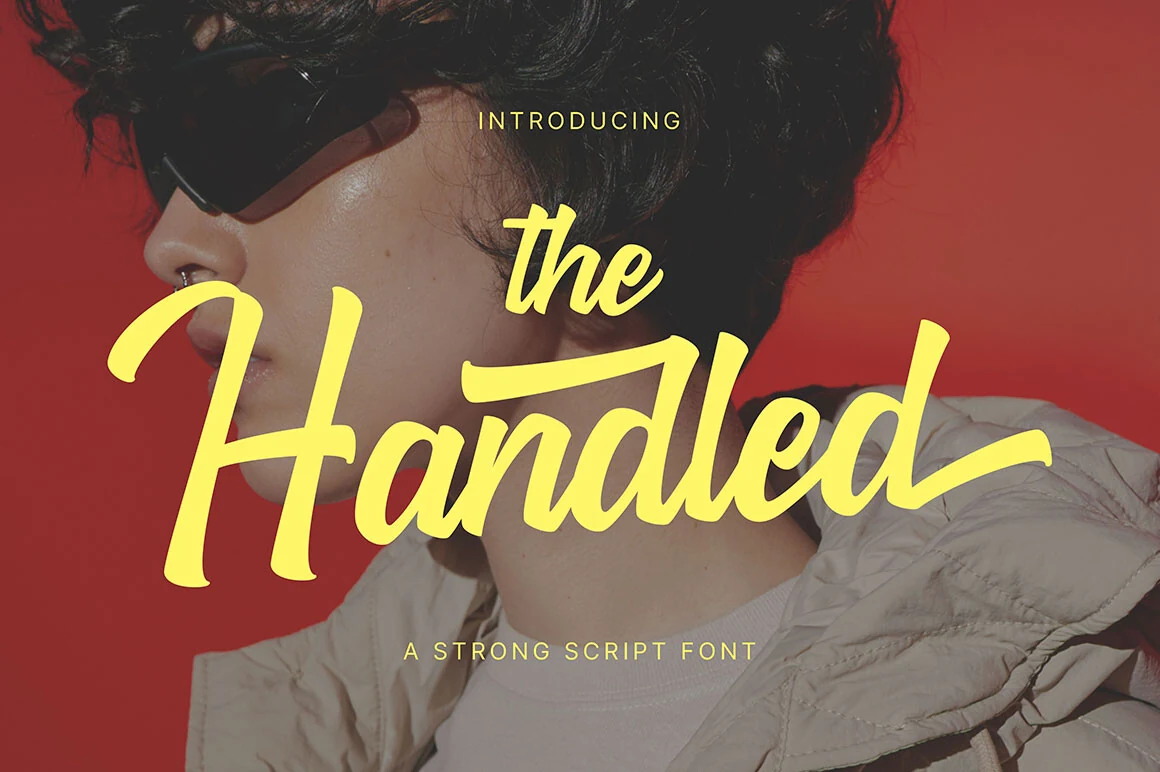
Best For: logos, posters, merch design, headlines
The Handled Font has the forceful rhythm expected from Brush Script Fonts, with thick connected letters, angled movement, and extended terminals that pull the wordmark across the line. Its rounded brush pressure gives the script a confident, poster-ready shape without turning the forms overly rough.
This is a display script for short names, titles, and apparel graphics where the lettering needs to carry the main visual weight. Give the long entry and exit strokes enough side space, then use compact uppercase support text to build hierarchy without competing with the script’s wide horizontal sweep.
Brownless Font
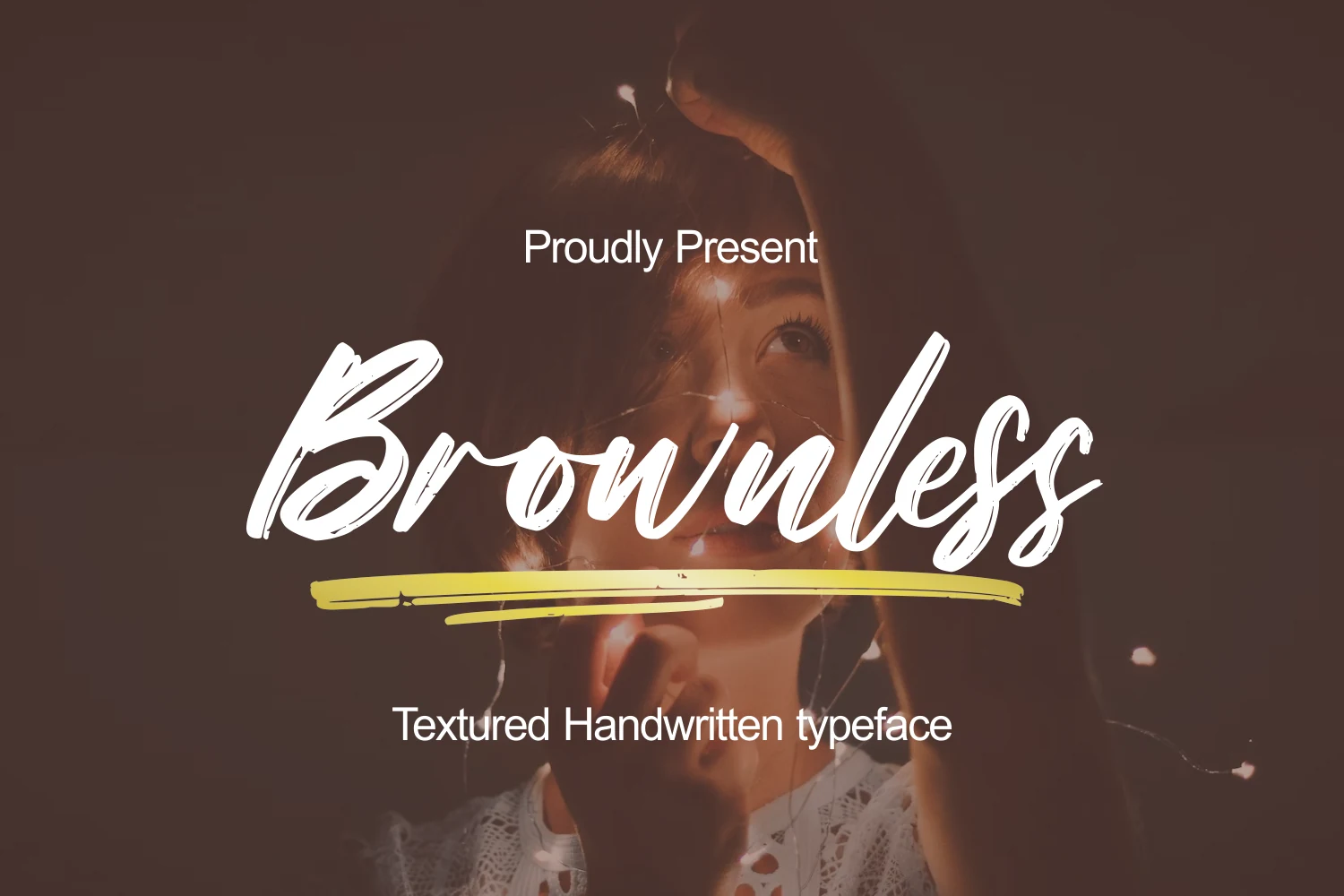
Best For: logos, posters, packaging, book covers
Brownless Font brings Brush Script Fonts into a textured handwritten space, using long connected strokes, sharp brush exits, and dry ink breaks inside the heavier letterforms. The script has a wide, sweeping rhythm, so it reads more like a confident title treatment than a quiet signature.
Use it for logos, packaging labels, posters, and book cover titles where the texture can stay visible. Keep the supporting type clean and small in hierarchy, and give the descenders and underline-style strokes enough lower margin so the brush movement does not feel clipped.
Midnight Font
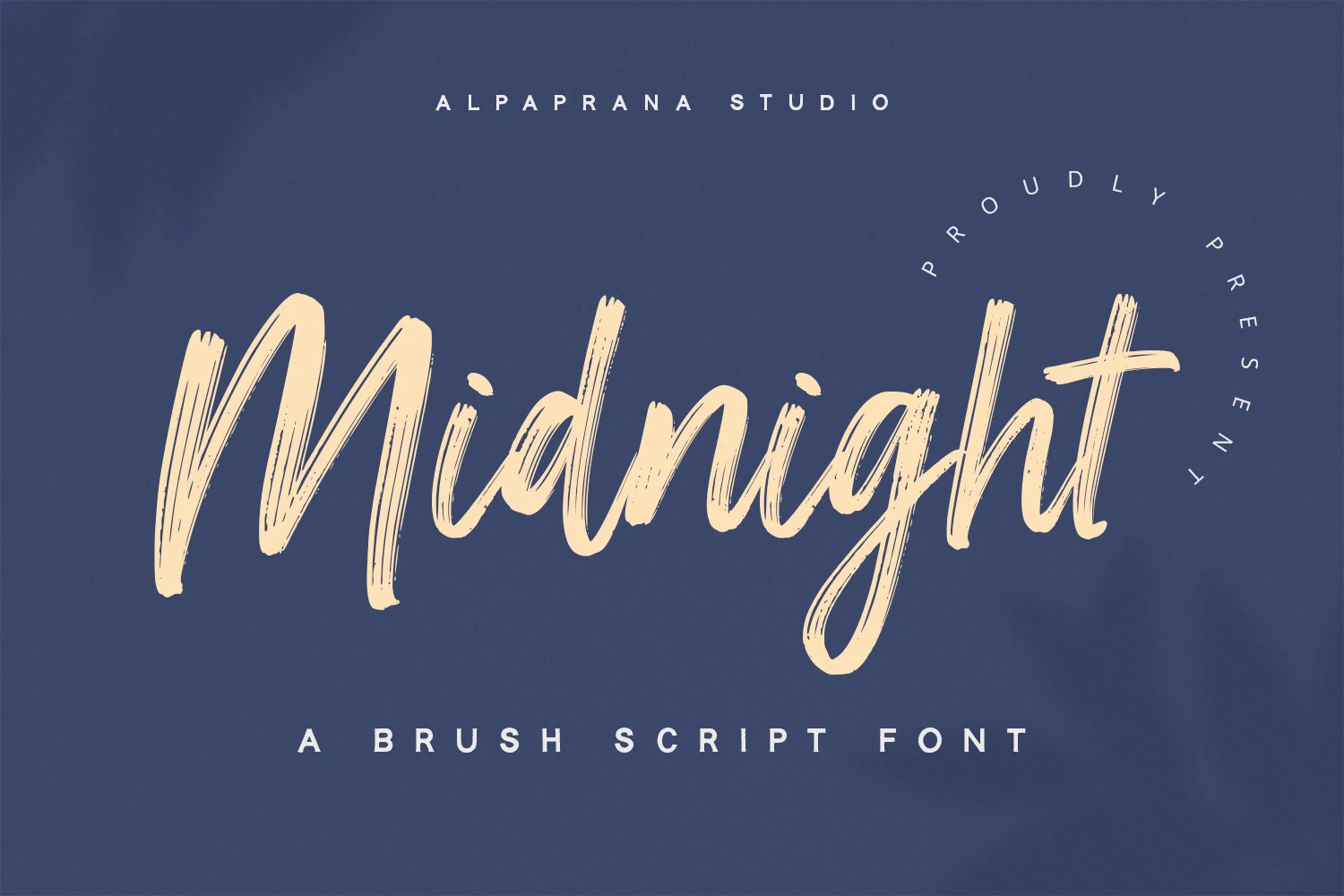
Best For: logos, branding, packaging, posters
Midnight Font has a loose modern rhythm, with tall brush-built letters, dry streaks through the strokes, and a long descending loop that gives the wordmark clear motion. It sits within Brush Script Fonts that feel handmade but still controlled enough for polished branding work.
The texture is strongest when the lettering is used large, especially on logos, packaging, posters, and apparel graphics. Keep the surrounding typography spaced out and restrained, because Midnight already carries a wide horizontal movement and its rough brush edges need contrast to stay readable.
Blaze Spirit Font
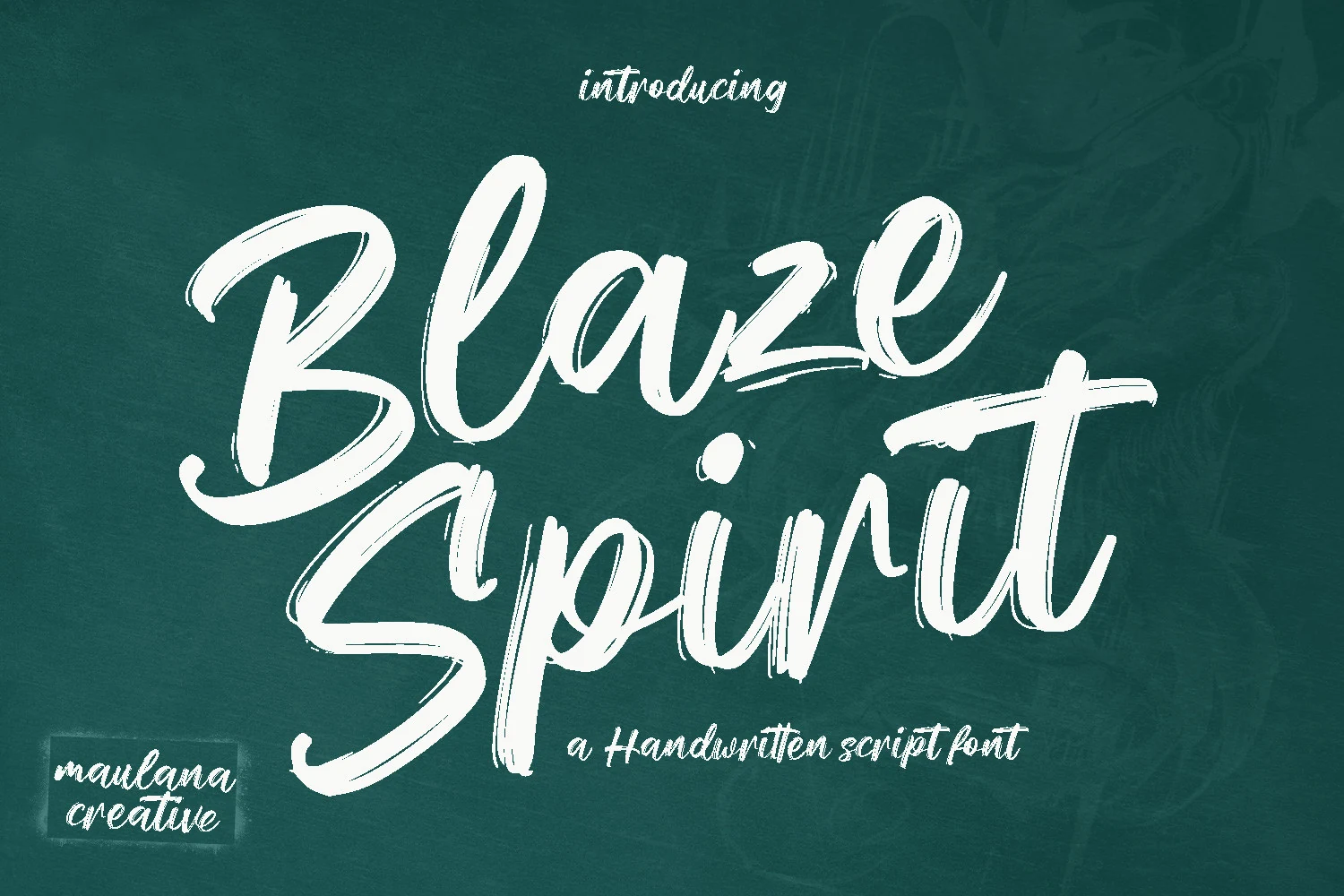
Best For: logos, social media graphics, book covers, display text
Blaze Spirit Font pushes Brush Script Fonts toward a bold handwritten look, with oversized capitals, high-contrast brush pressure, and rough dry edges that keep the strokes from feeling too polished. The wide loops and fast exits make it strongest as display lettering for short names, titles, and logo marks.
Use it with a clean sans or restrained serif when the script needs to lead the hierarchy without carrying every line of text. Its ligature support can smooth selected joins, while multilingual support helps keep the same brush voice across broader branding, social media, and book title layouts.
Freeday Font
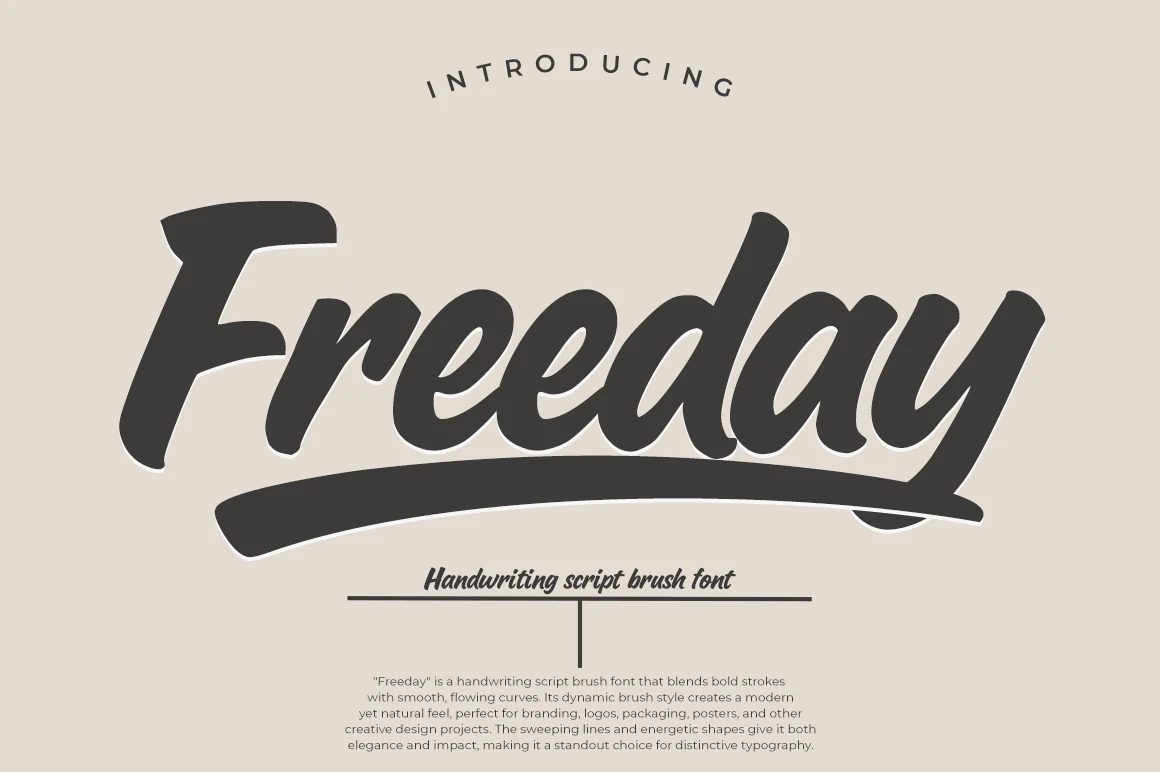
Best For: logos, branding, packaging, posters
Freeday Font brings Brush Script Fonts into a clean, heavy wordmark style, with thick slanted letters, smooth rounded joins, and a broad underline that anchors the whole composition. Its curves are more polished than gritty, giving the lettering a strong commercial feel rather than a raw paint texture.
Use it for logos, packaging, poster titles, and brand graphics where one bold script word needs to dominate the layout. The long underline and wide exit strokes need generous side and bottom spacing, while small uppercase support text can add structure without weakening the script’s main impact.
Brighter Brush Font
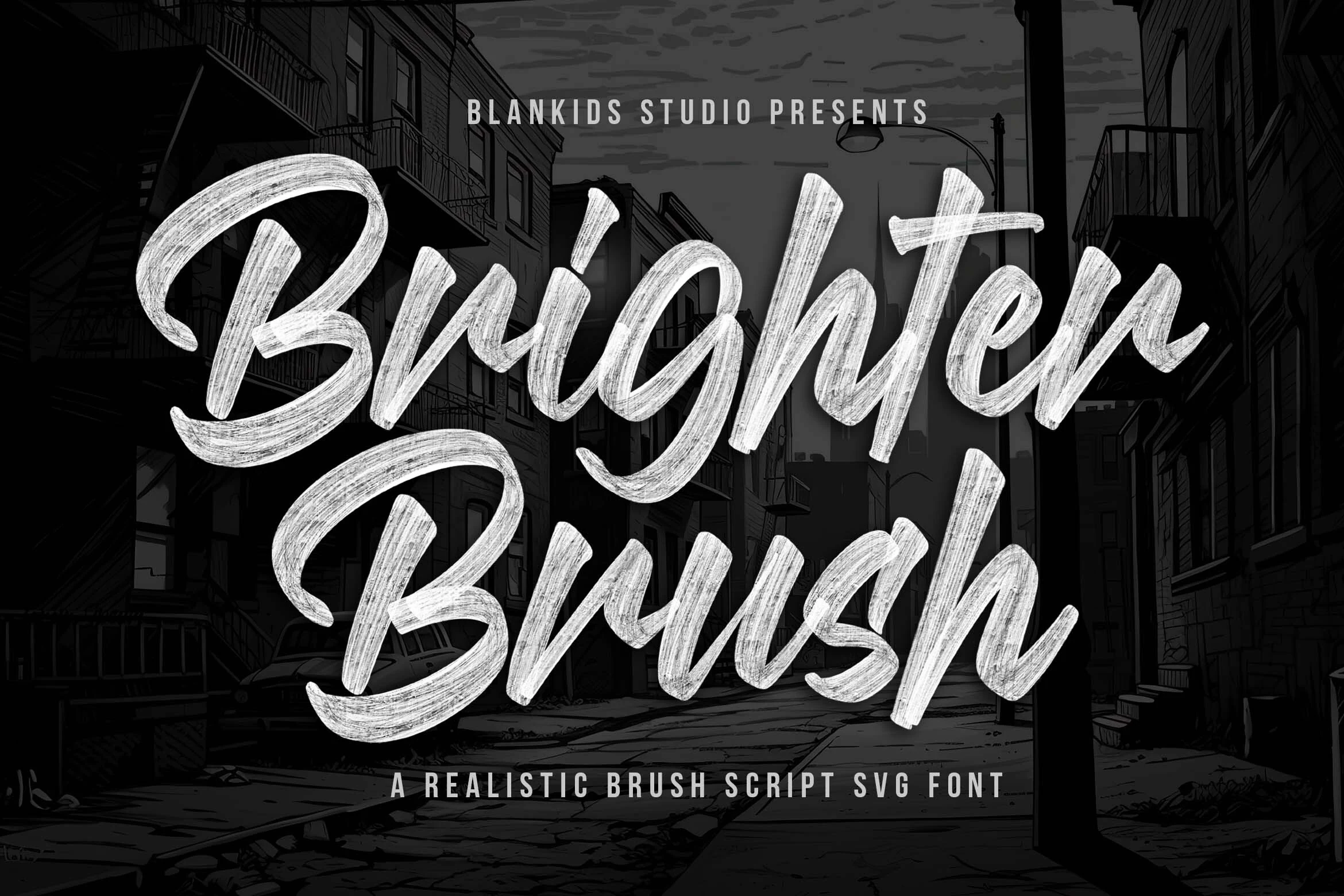
Best For: logos, branding, product packaging, posters
Brighter Brush Font gives Brush Script Fonts a realistic painted surface, with broad sweeping loops, thick pressure shifts, and dry bristle streaks visible through nearly every stroke. The large capitals have a strong sign-painter presence, while the connected lowercase keeps the words moving in one continuous rhythm.
Use it for logotypes, comic titles, poster graphics, product packaging, and promotional layouts where brush texture should be part of the message. Keep phrase length controlled and avoid low-contrast backgrounds, because the fine scratch marks need enough scale and clarity to read as texture rather than visual blur.
The Barattie Font
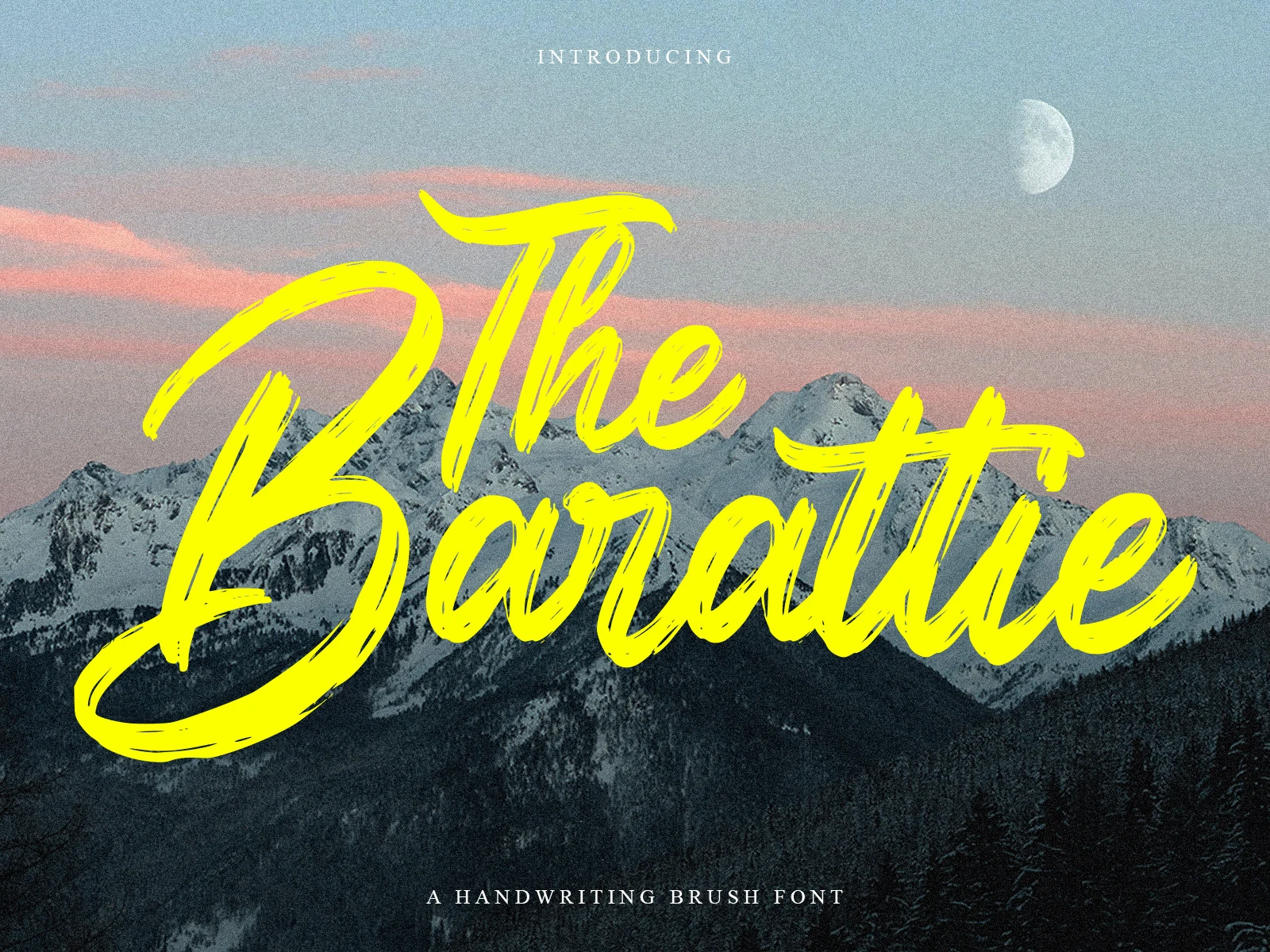
Best For: logos, posters, headlines, bold designs
The Barattie Font brings Brush Script Fonts into a large, high-impact display style, with thick painted strokes, sweeping curves, and dry brush cuts that show through the bright letterforms. The oversized capital shapes and long horizontal movement make the script feel forceful without losing its handwritten flow.
Use it for logos, poster titles, and headlines that need a strong focal word. Keep the background simple and the phrase short, because the wide loops, sharp exits, and textured interiors need enough scale and contrast to stay clean rather than crowded.
Rattin Font
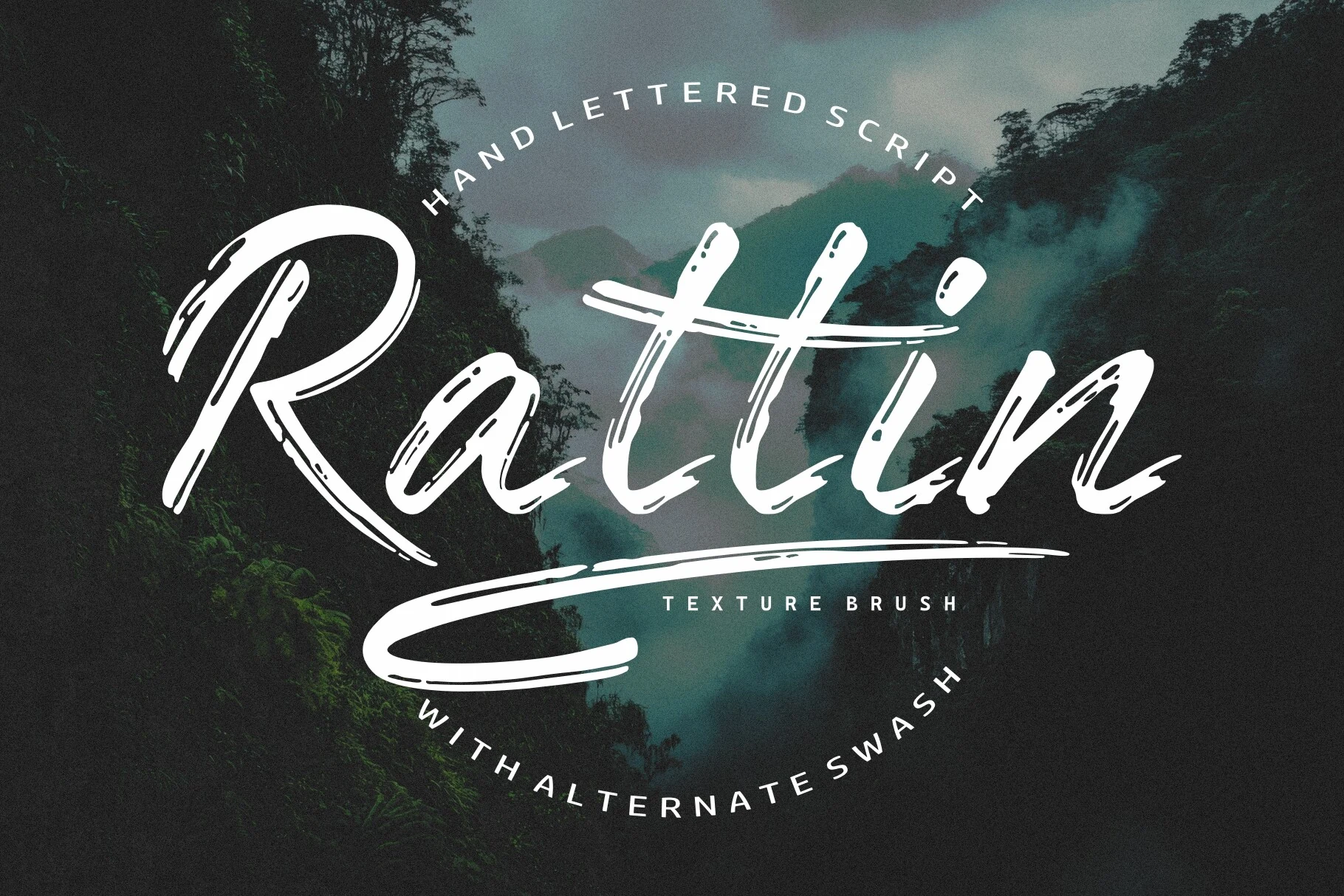
Best For: logos, posters, display text, eye-catching designs
Rattin Font pushes Brush Script Fonts into a sharp hand-lettered style, with long angled strokes, open ink gaps, and a dramatic underline swash that stretches the word into a full logo shape. The thin-to-thick brush rhythm gives it speed, while the scratched texture keeps the lettering raw and handmade.
Use it for title marks, outdoor branding, posters, and display graphics where one expressive word can lead the composition. The alternate swashes help adjust the final silhouette, but the long entry strokes and underline need wide margins and strong contrast to avoid crowding the layout.
Roughsweep Font
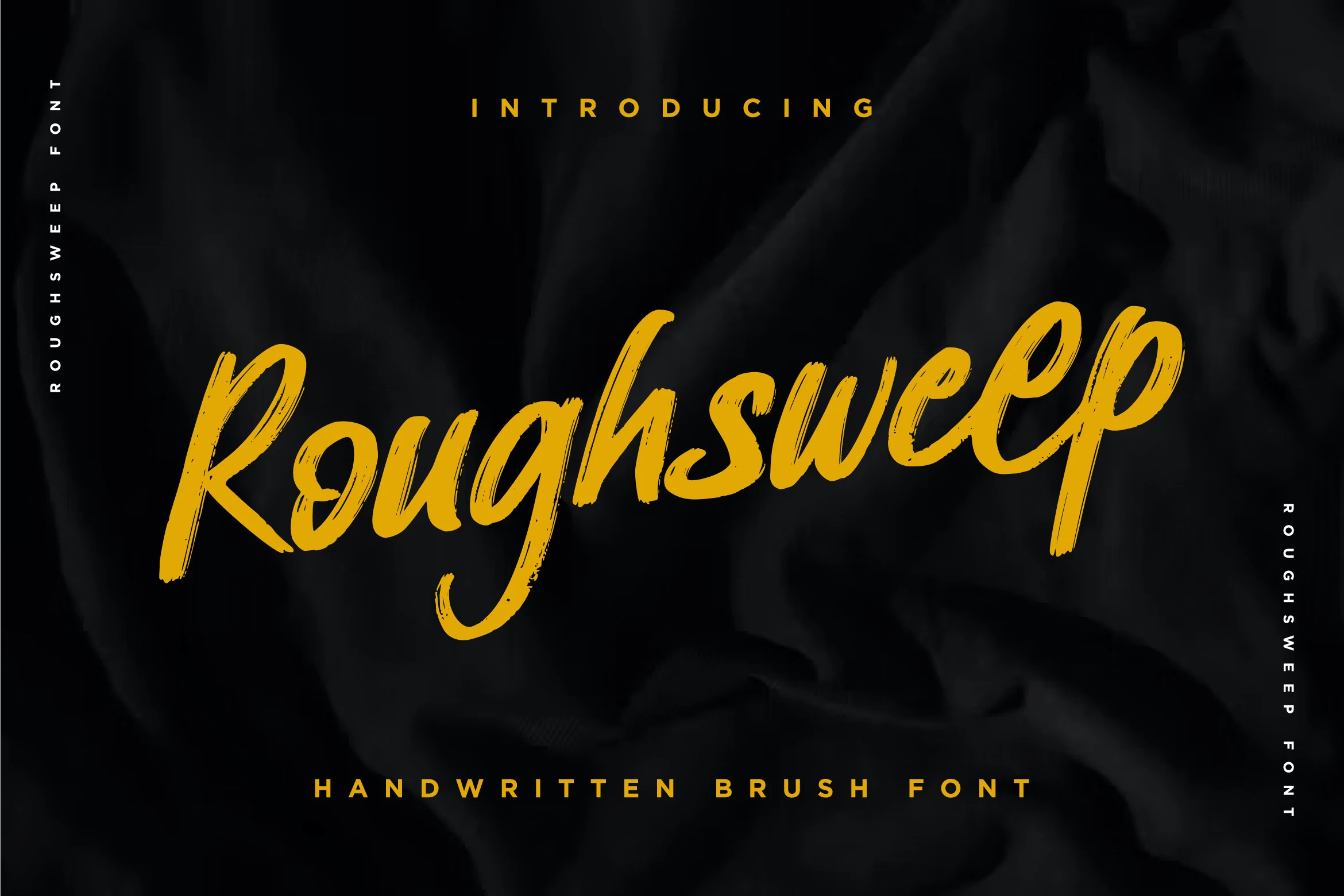
Best For: posters, T-shirts, branding, book covers
Roughsweep Font has a casual brush rhythm with rounded joins, uneven stroke edges, and visible dry marks that keep the lettering from looking too polished. The long descender on the “g” and lifted ending strokes add motion, while the broad letter shapes keep the word readable at display scale.
Its brush-on-paper origin suits Brush Script Fonts where the design needs a natural mark rather than a clean digital script. Use it for compact titles, apparel graphics, and branding pieces with strong contrast; loose tracking is unnecessary, but the taller loops need enough vertical space to avoid a cramped layout.
Rough & Street Brush Script Fonts
This group covers sharper, rougher brush scripts with horror, street, and handmade poster energy for merch graphics, event titles, and aggressive display layouts.
Ghost Bolpi Font
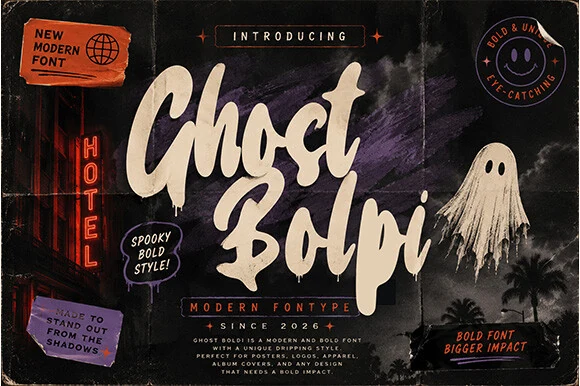
Best For: posters, merch design, headlines, eye-catching designs
Ghost Bolpi pushes Brush Script Fonts into horror-poster territory with thick, slanted brush forms, rounded cartoon curves, and paint-like drips hanging from the lower strokes. The letters feel heavy and loud, but the open counters and broad internal shapes keep short words readable at display size.
Use it where the title needs to dominate the layout: event posters, apparel graphics, comic-style headers, or Halloween branding. Its drips and uneven brush edges work best with generous vertical spacing, while a plain supporting typeface keeps the composition from turning visually crowded.
South Emton Font
Best For: posters, merch design, headlines, eye-catching designs
South Emton Font sits on the louder side of Brush Script Fonts, with thick painted strokes, abrupt directional turns, and visible bristle streaks running through the letterforms. The uneven baseline and stacked rhythm give it a fast handmade feel rather than a polished calligraphic one.
Use it for short titles, poster words, apparel graphics, and logo marks that need a rough burst of energy. Keep the phrase length tight and increase contrast around the letters, because the dense brush texture and compressed connections can lose clarity when scaled down or placed over busy artwork.
Morria Font
Best For: posters, headlines, display text, eye-catching designs
Morria Font takes Brush Script Fonts into a sharper horror-display direction, with heavy uppercase strokes, torn brush edges, and scratch-like gaps that cut through the letterforms. The wide capitals have enough mass for strong visibility, while the ragged terminals give each word a nervous, aggressive texture.
Use it for scary posters, event titles, merch graphics, and short headline treatments where impact matters more than refinement. Keep phrases brief, leave space around the underline-style strokes, and pair it with plain supporting text so the jagged brush texture stays readable instead of becoming visual noise.
Vibe Shift Font
Best For: logos, branding, posters, merch design
Vibe Shift Font turns Brush Script Fonts toward street-led branding, with oversized loops, fast diagonal movement, and rough bristle streaks cutting through the strokes. The contrast between the loose upper word and heavier lower word gives the lettering a layered, poster-like hierarchy.
Use it for brand marks, music graphics, apparel prints, and urban event posters where the script needs to feel expressive rather than tidy. Its long swashes demand generous side margins, and the textured stroke edges work best against simple backgrounds with strong value contrast.
Wavy Brick Font
Best For: posters, T-shirts, logos, expressive designs
Wavy Brick Font is built around heavy brush pressure, sharp slanted motion, and rough dry-brush cuts inside the strokes. The large capitals feel fast and aggressive, while the connected lowercase keeps the word shape moving like hand-painted street lettering.
For Brush Script Fonts that need impact rather than polish, this one belongs in short display text. Use strong contrast, tight title hierarchy, and generous margins around the longest strokes, because its wide forms and scraped texture lose force when crowded into small copy.
Alyester Font
Best For: posters, quotes, invitations, expressive designs
Alyester Font has a marker-like brush structure with sharp vertical cuts, rough inner streaks, and angular cross-strokes that give the word shape a quick handwritten charge. The tall letters and extended terminals make it more assertive than soft, with a compact rhythm suited to display use.
For Brush Script Fonts aimed at quotes, cards, and bold social graphics, Alyester works best when the text is short and the contrast is high. Keep supporting type simple and spaced out, because the script already carries strong direction through its slashes, underlines, and broken brush texture.
Retro & Playful Brush Script Fonts
These brush scripts lean into sign-painter rhythm, casual marker texture, and upbeat retro curves for social graphics, vintage branding, quotes, and seasonal designs.
Summer Brush Font
Best For: logos, signage, packaging, social media graphics
Summer Brush Font has the upbeat sign-painter energy of Brush Script Fonts, with thick connected strokes, rounded pressure changes, and broad swashes that make the words feel fast and handmade. The letterforms stay fairly open for a brush script, so short names and seasonal titles remain clear.
Its marker-style flow works best where the lettering can act as the main graphic element: boutique logos, café signage, packaging, or social posts. Let the large capitals and lower loops take the visual lead, then use small, widely spaced support text to keep the layout balanced.
Advance Glowing Font
Best For: logos, branding, posters, retro designs
Advance Glowing Font gives Brush Script Fonts a ready-made duo structure, pairing a heavy distressed sans with a loose coral brush script full of dry ink streaks. The sans carries the main block weight, while the script adds motion and texture across the foreground.
This setup is useful for poster titles, retro logos, quotes, and brand graphics where contrast between solid type and hand-painted lettering does most of the work. The script alternates, ligatures, and line elements help build custom lockups, especially when the brush word needs an underline or a stronger title break.
Regratte Font
Best For: invitations, quotes, social media graphics, casual designs
Regratte Font gives Brush Script Fonts a compact marker-board attitude, with blunt brush starts, rough cut edges, and a slightly uneven handwritten rhythm. The letters stay fairly simple in structure, so the texture adds energy without making short words difficult to read.
Use it for invitations, greeting-card headlines, quote graphics, and casual social posts where the message should feel quick and direct. Keep the line count low and pair it with spaced uppercase text, because Regratte’s choppy stroke edges need clean surrounding space to keep the title sharp.
Sorastina Font
Best For: retro designs, vintage designs, posters, logos
Sorastina Font has the punch of hand-painted signage: wide brush pressure, fast curves, and long sweeping entry and exit strokes that give each word a strong retro rhythm. The tall verticals and compact joins keep the lettering energetic without losing the handcrafted edge.
Use it where Brush Script Fonts need to feel nostalgic rather than delicate. It works best in short titles, logo marks, posters, and apparel graphics, with enough surrounding space for the large swashes and enough contrast to keep the thin interior cuts from disappearing.
Gloucester Script Font
Best For: posters, T-shirts, logos, merch design
Gloucester Script Font pushes a loose brush style with tall upright strokes, uneven paint edges, and a long sweeping underline that turns a wordmark into a full display composition. The letterforms feel fast and handmade, with narrow joins that contrast against the heavier downstrokes.
Use it when Brush Script Fonts need a loud headline voice rather than quiet handwriting. The bonus swashes are useful for building underlines and directional accents, while the paired marker font can handle small supporting text so the main script stays focused on short titles, logos, and apparel graphics.
Bliss Sureal Font
Best For: logos, posters, social media graphics, fun designs
Bliss Sureal Font leans into thick rounded brush shapes, inflated curves, and a bouncy baseline that makes the lettering feel casual and upbeat. The large capitals create strong entry points, while the softer joins keep the script friendly instead of sharp or aggressive.
It fits Brush Script Fonts that need a bold lifestyle look for short names, upbeat quotes, and social graphics. Keep the wording compact and give the descenders enough room; the heavy strokes hold color well, but crowded layouts can flatten its playful rhythm.
Conclusion
Choose bold and textured brush scripts when the font needs to lead a brand mark or poster. Use rough and street styles for stronger attitude, and pick retro or playful scripts when the design needs a warmer handmade rhythm.